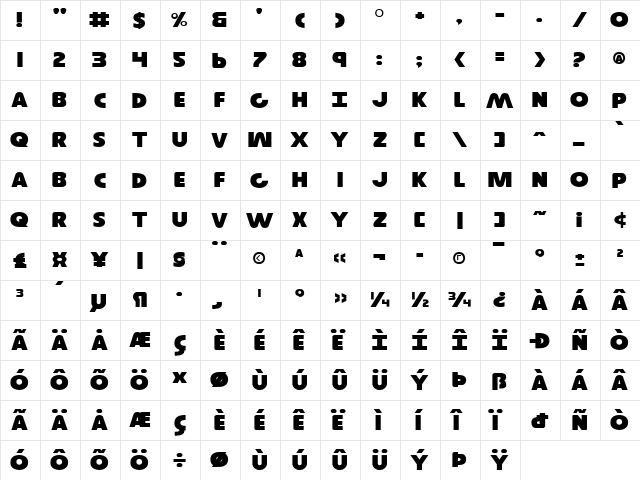
Governor Expanded Expanded
Design Context for Governor Expanded Typeface
Governor Expanded offers clean, dependable letterforms without strong stylistic allegiance, making it a practical choice for designers who need flexibility.
Pro Tip: Pair Governor Expanded with a font of contrasting weight or personality to build a more expressive typographic hierarchy.